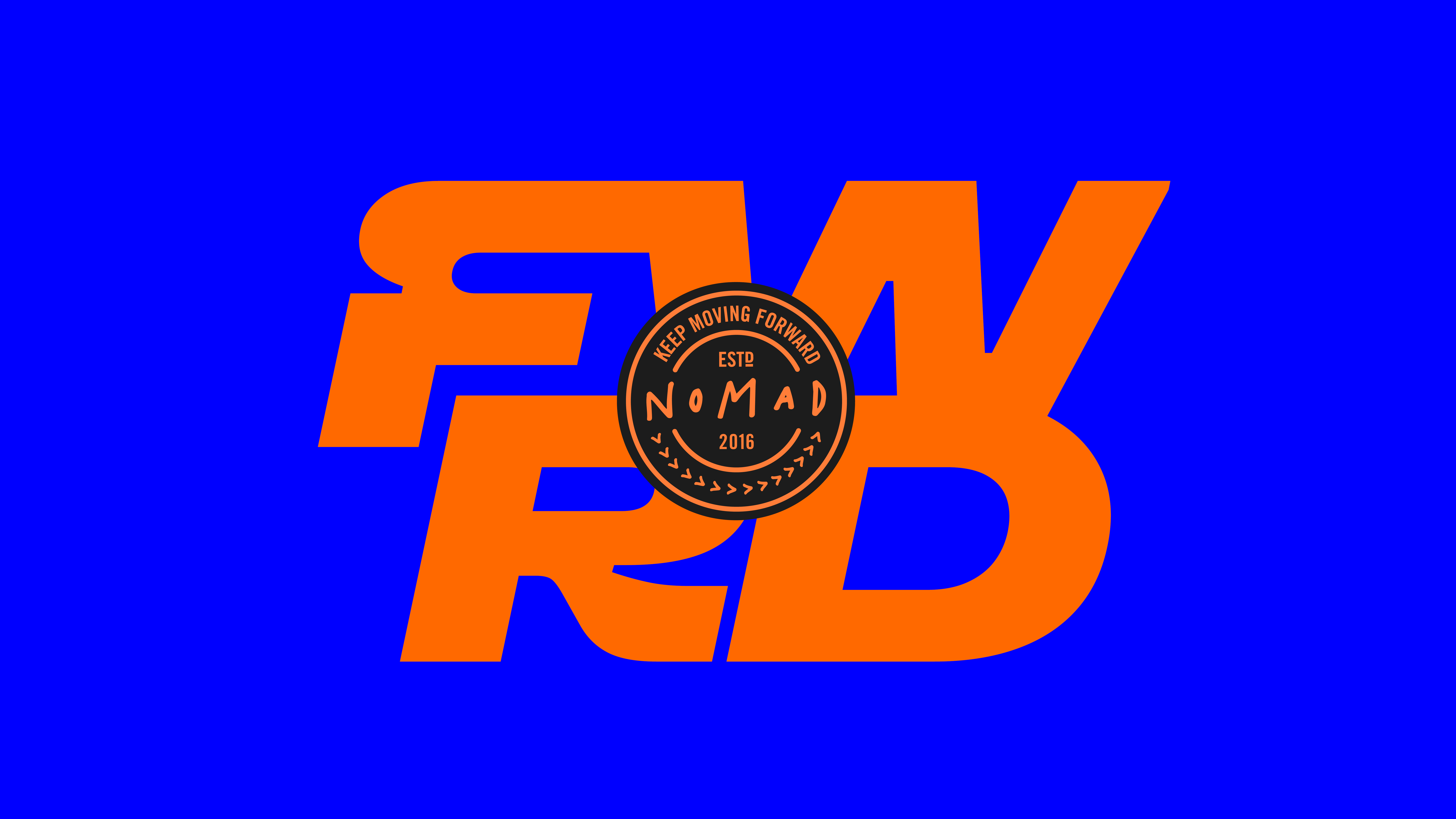
F37 Wanderer
Blasting the volume on any message, F37 Wanderers by Studio Nomad packs a punch where ever it is used.
Built to be loud, F37 Wanderers is a heavy, wide and commanding neo-grotesque sans serif. The prominent ink-traps, low contrast and tight spacing make it pop in headlines, while the Q’s flat tail makes it easy to set capital leading as tight as possible. F37 Wanderers’ default character set is neutral and versatile, however there are also many eccentric and vibrant alternate letter forms available to punch up your message. Try Stylistic Set 1 for boxy round characters, Stylistic Set 4 for some uniquely dynamic capitals or Stylistic Set 5 for added neutrality, just to name a few. F37 Wanderers covers European latin and is also available in a 10° italic, for even more emphasis.
F37® × Studio Nomad
F37 Wanderer
Interview
Tell us about the inspiration behind your collaboration with F37®×. If it was an unused concept, what was the potential use case for it.
We wanted to develop a typeface that was packed full of energy and movement. Something that could reflect our 'Keep Moving Forward' manifesto. Primary use is proposals and presentation decks, but eventually new website and other Nomad branded comms.
When starting the process of creating your font, what typographic conventions did you look to break or experiment with? Or were there conventions of functionality you championed?
We wanted something that would compliment our workhorse typeface – the custom variable face Universal Sans. Whilst that is super legible, it lacks some character and the ability to hit hard key points in presentations and pitch decks. What we loved about working with you guys (F37®) is how much character you were able to bring to it in the alt glyphs.
Now that your typeface has launched, what would be your dream project to use your F37® typeface on?
The new Nomad website, but we're also planning some kick-ass merch that it'd be awesome for.
What have you learnt through developing and creating your own typeface(s) with our F37® type designers?
That your team rocks! Love how they listened to the needs, but pushed things and tested what we wanted to get from it all. No doubt we ended up with much better face because of the dedication from the designers.
How would you describe your typeface in three words?
BIG. FAST. ENERGY.